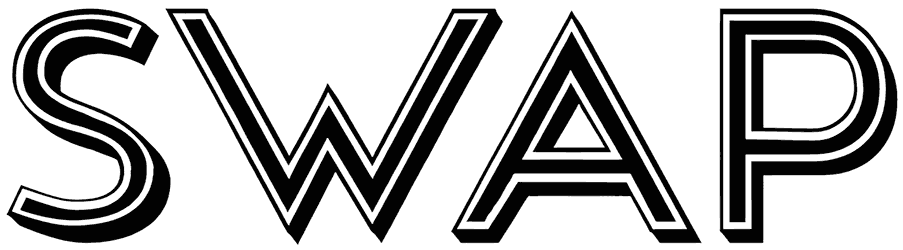
Swap Font
Making a special design for a remarkable experience, designing catchy headlines, or even making sports banner ads for catching maximum attention, what can be better than a sans-serif font?
Here, from RBs’ merchandise, a freebie wonder like Swap comes across to decorate any illustration professionally. No concern for its lack of lowercase letters and numbers, this inline font helps you to stay ahead of others. Check the rest by the minute to have the first dibs on all you fancy.